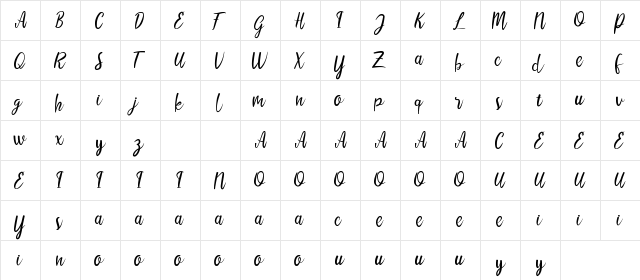
LIONELLOSCRIPT DEMO Regular
| Foundry | Edric Studio |
| Designer | M Nouval |
Design Context for LIONELLOSCRIPT DEMO Typeface
LIONELLOSCRIPT DEMO brings a calligraphic fluidity to the page — its connecting strokes and expressive curves give it an unmistakably human quality.
Font Pairing: Combine LIONELLOSCRIPT DEMO with a simple geometric sans for maximum contrast — the tension between flowing curves and clean structure is a classic typographic pairing.
Pro Tip: Use LIONELLOSCRIPT DEMO for short runs of text — names, titles, or taglines. Extended body copy in script faces tires the eye quickly.